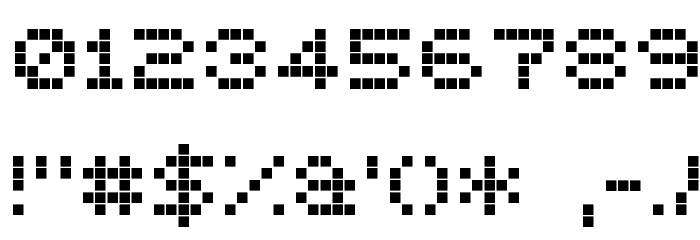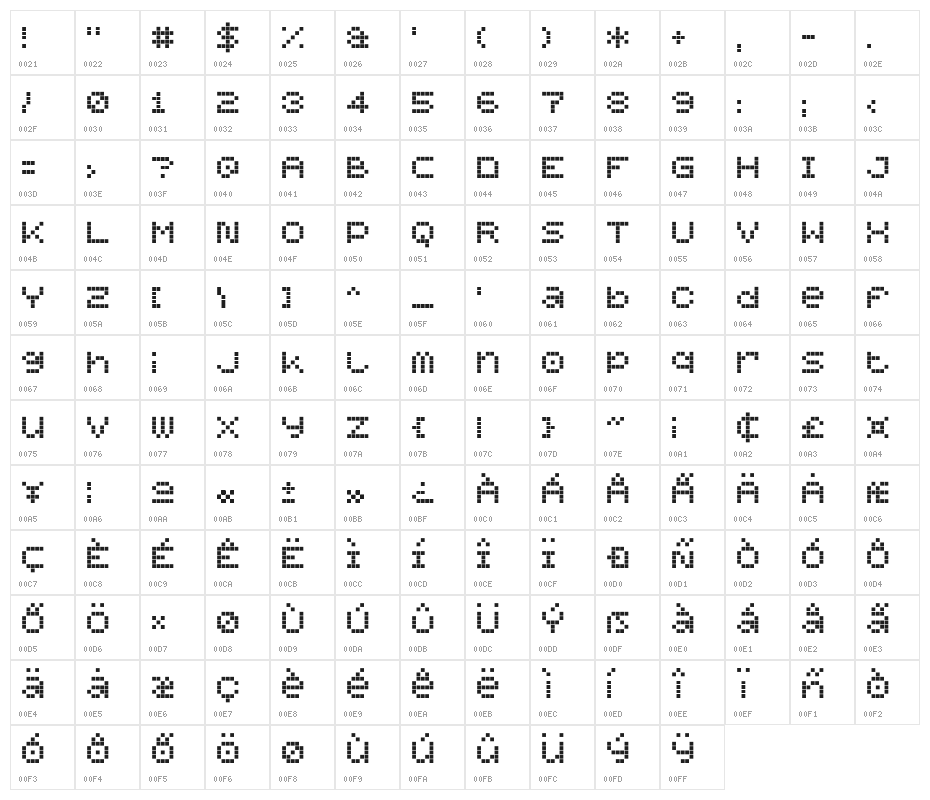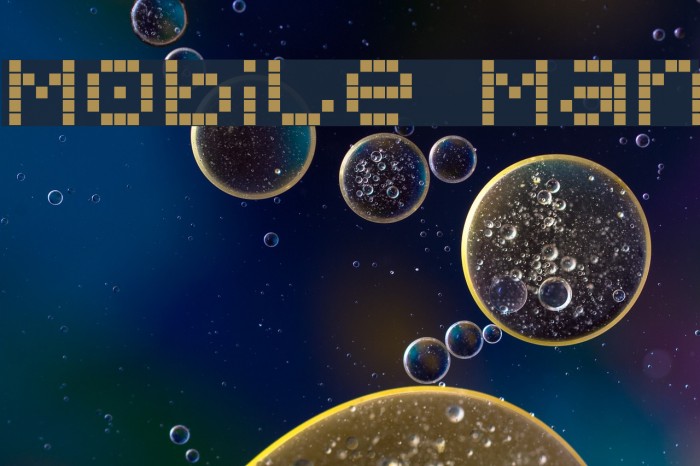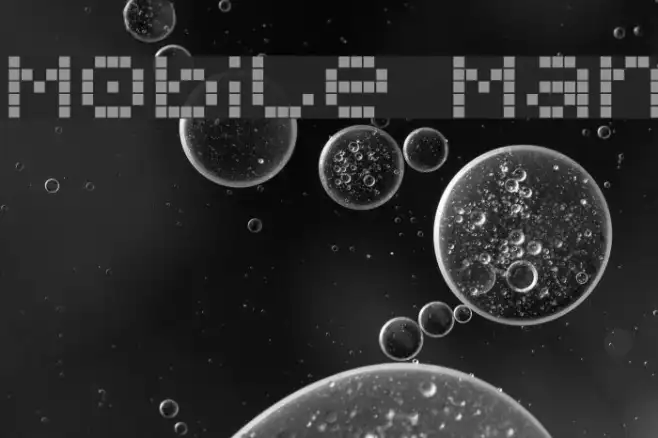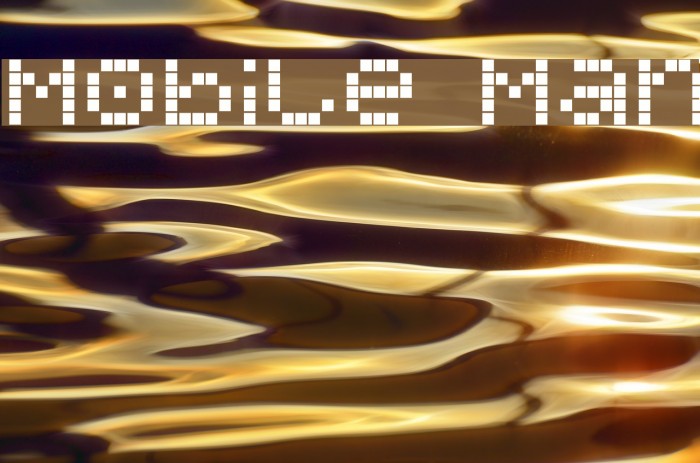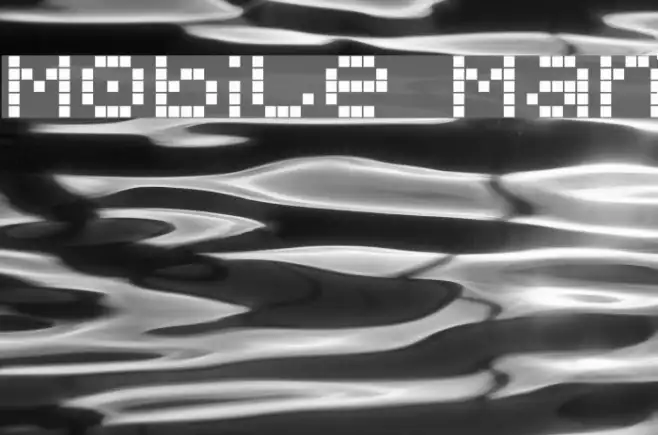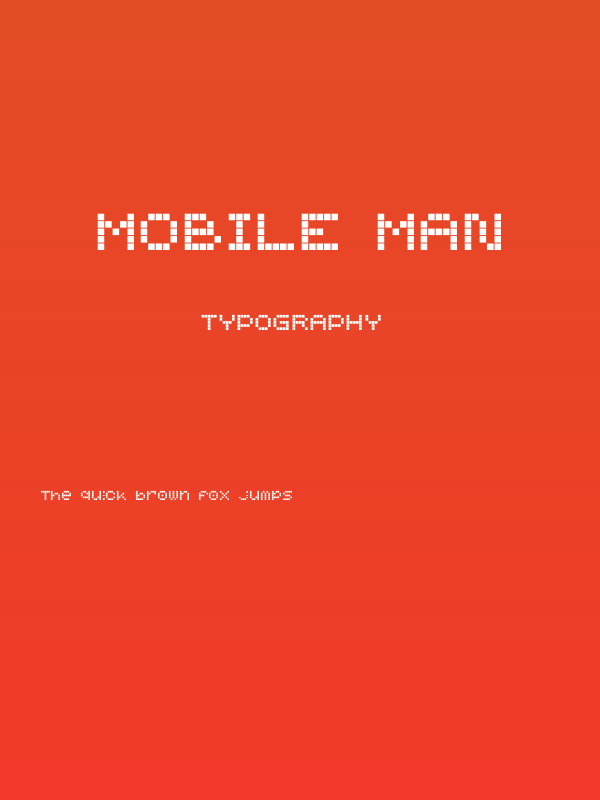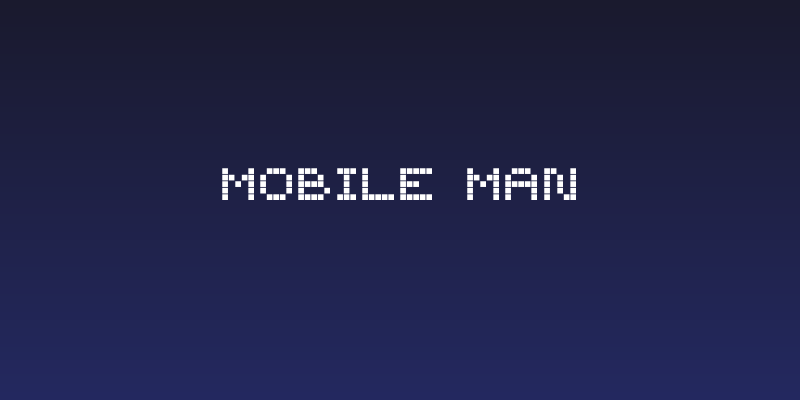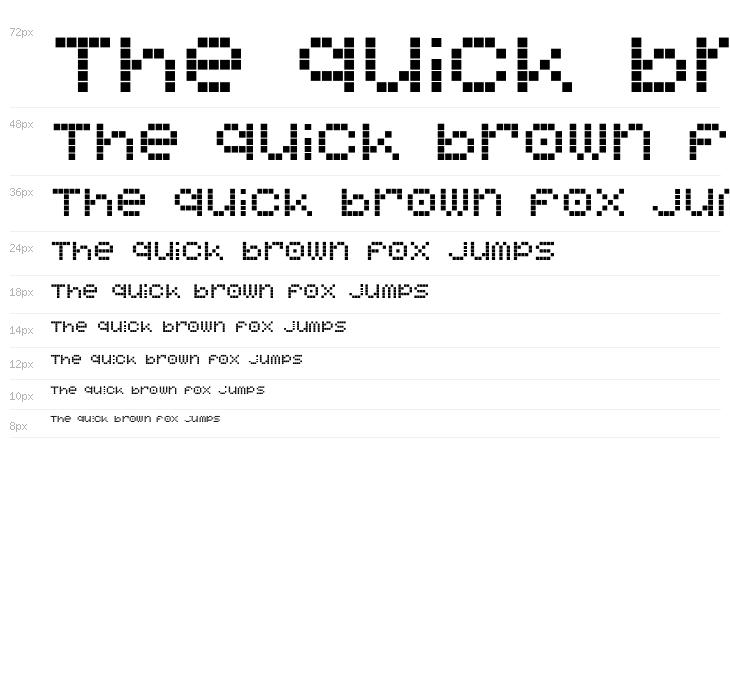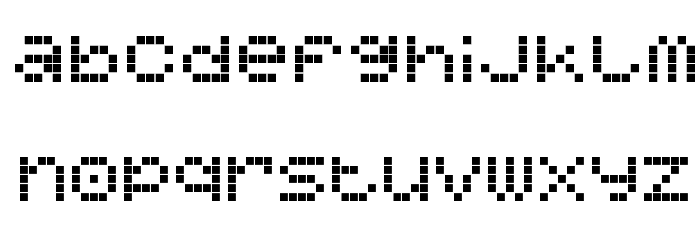
Mobile Man Font
Mobile Man Description
This font features a distinct pixelated design, reminiscent of early digital displays and retro gaming aesthetics. Each character is constructed from a grid of small squares, giving it a blocky, geometric appearance. The uniformity in the size and shape of the squares creates a cohesive and structured look, while the overall style evokes a sense of nostalgia for classic arcade games and digital interfaces. The font is highly legible, with clear differentiation between characters, making it suitable for both display and text purposes. Its unique style is ideal for projects that aim to capture a vintage digital or tech-inspired theme.
| Use Case | Headlines, Logos, Digital Art |
| Proposed Projects | Perfect for video game designs, tech-themed posters, retro websites, and digital art projects. |